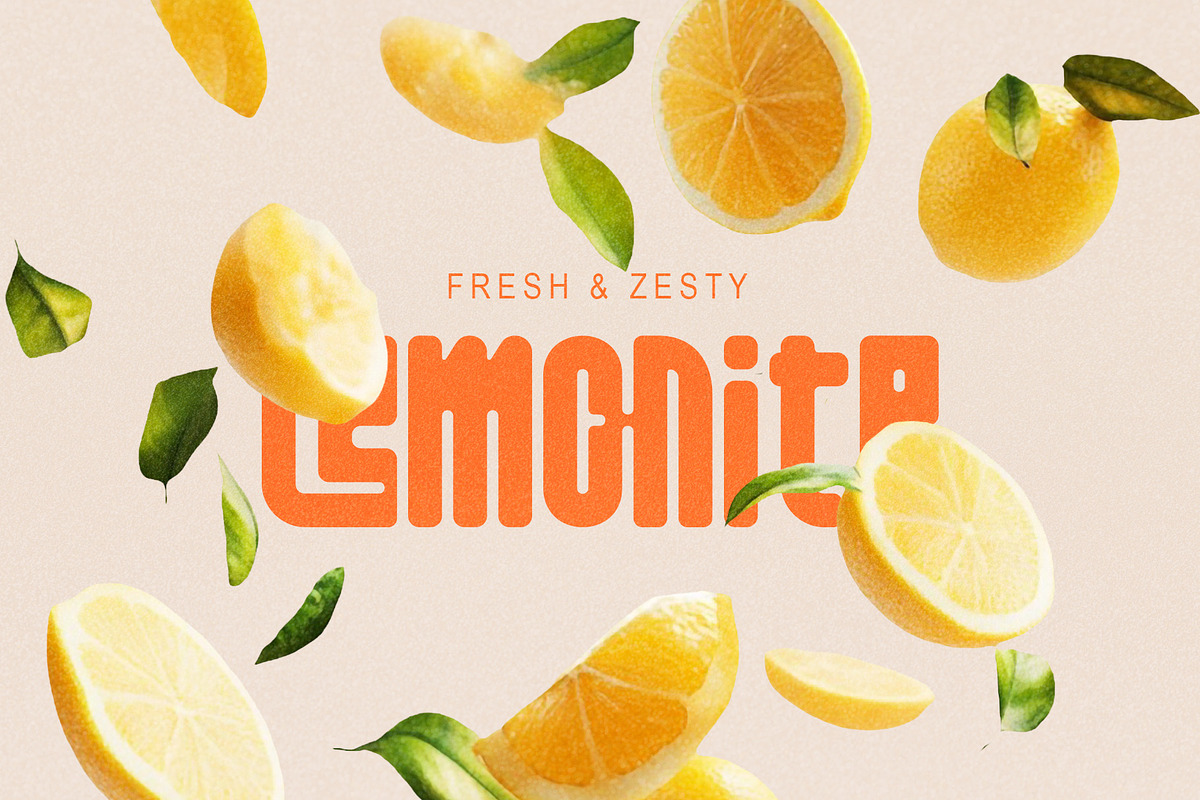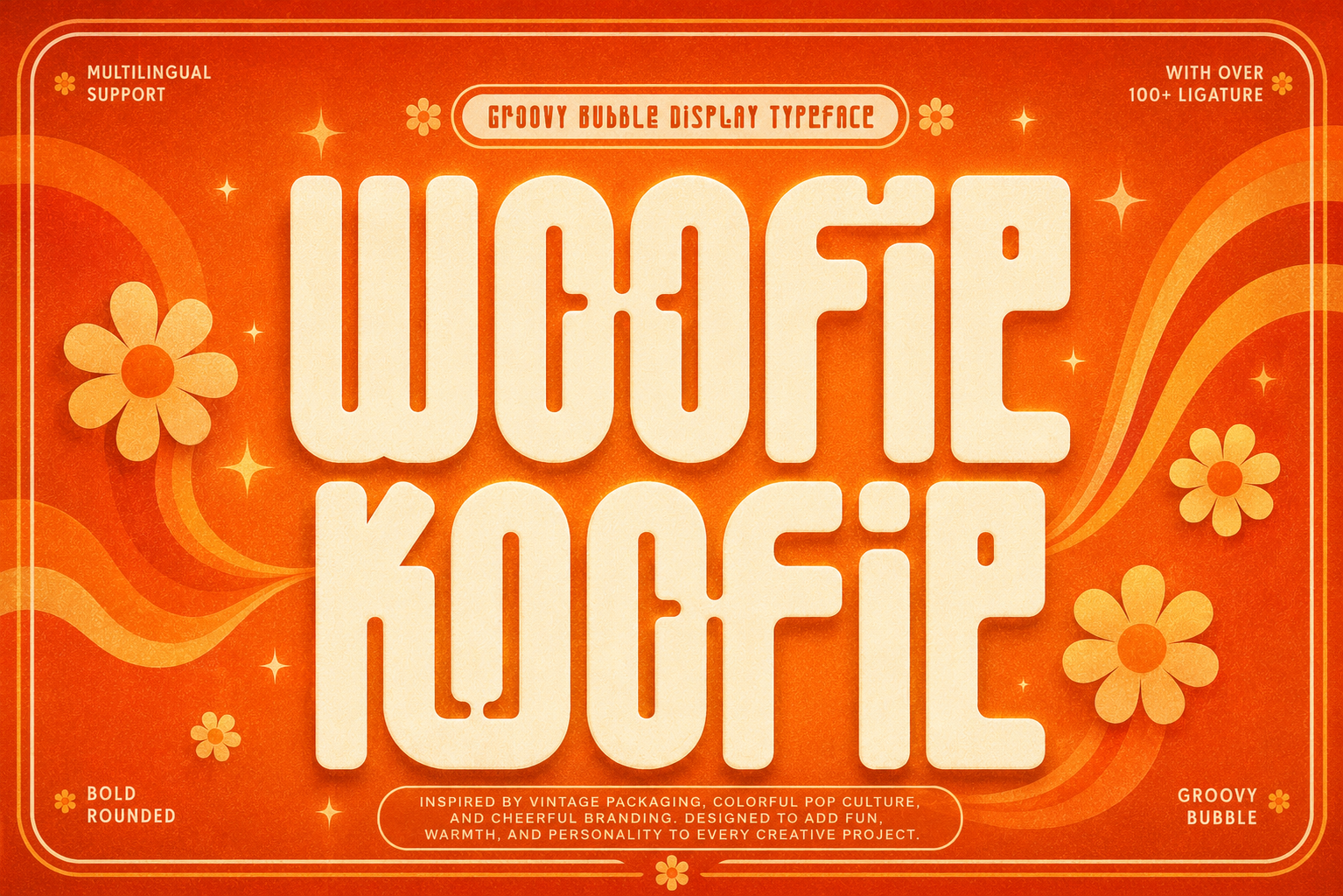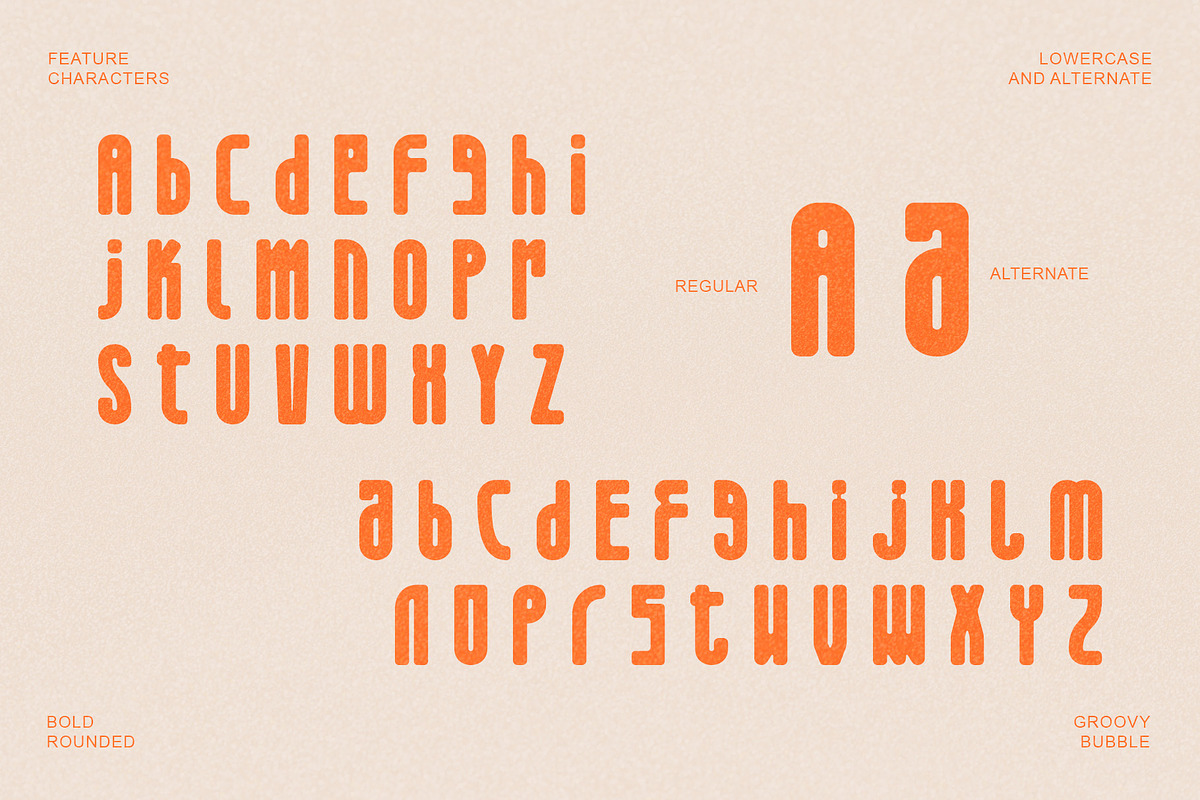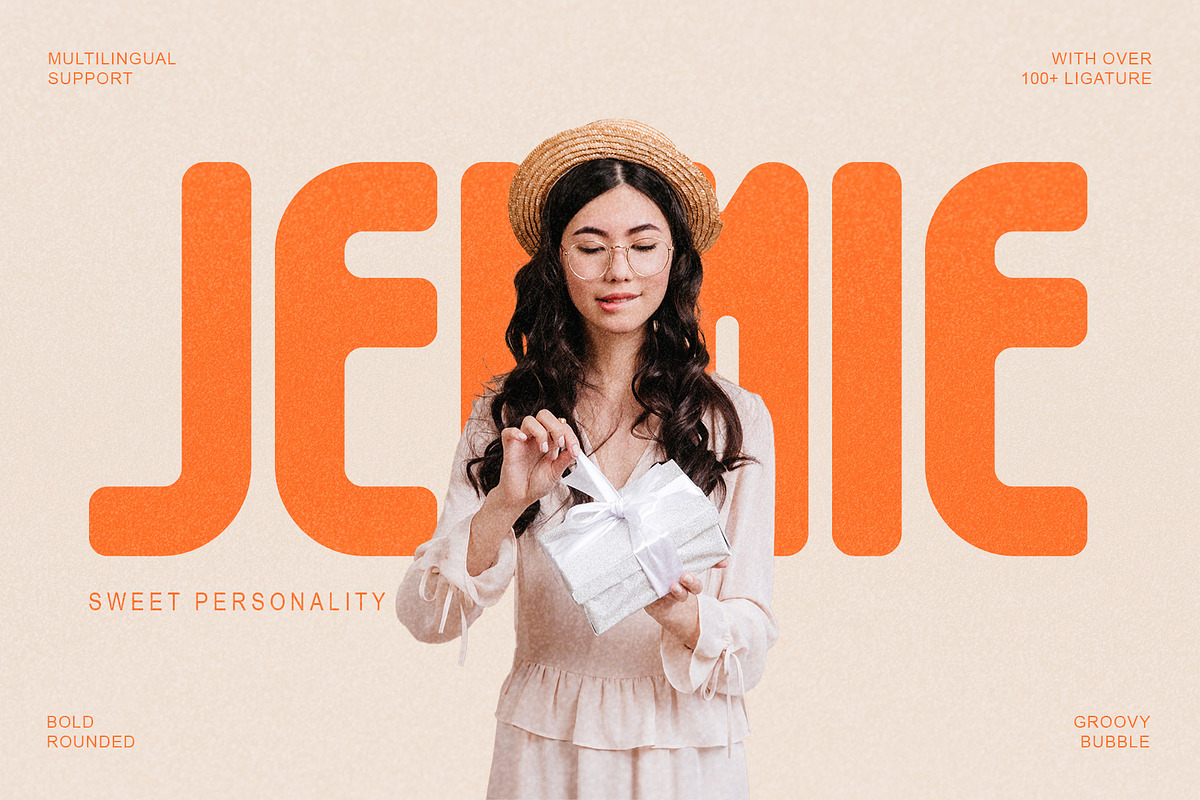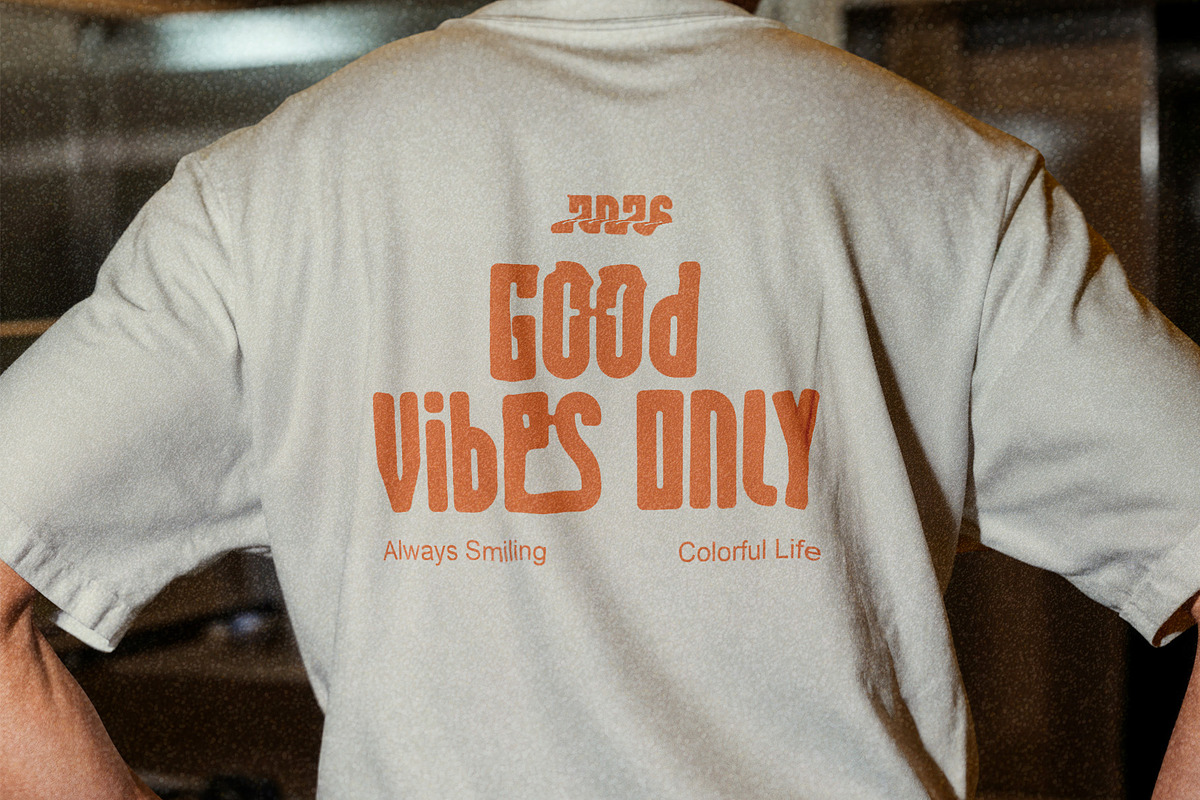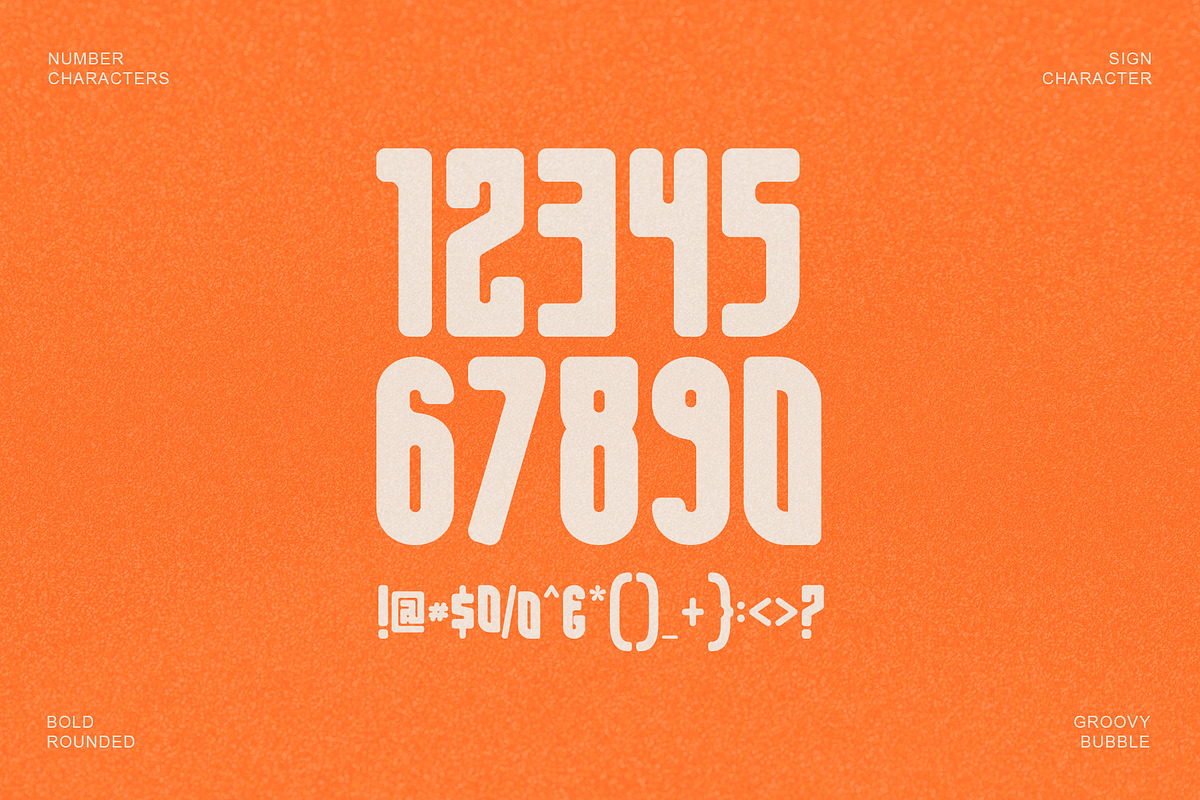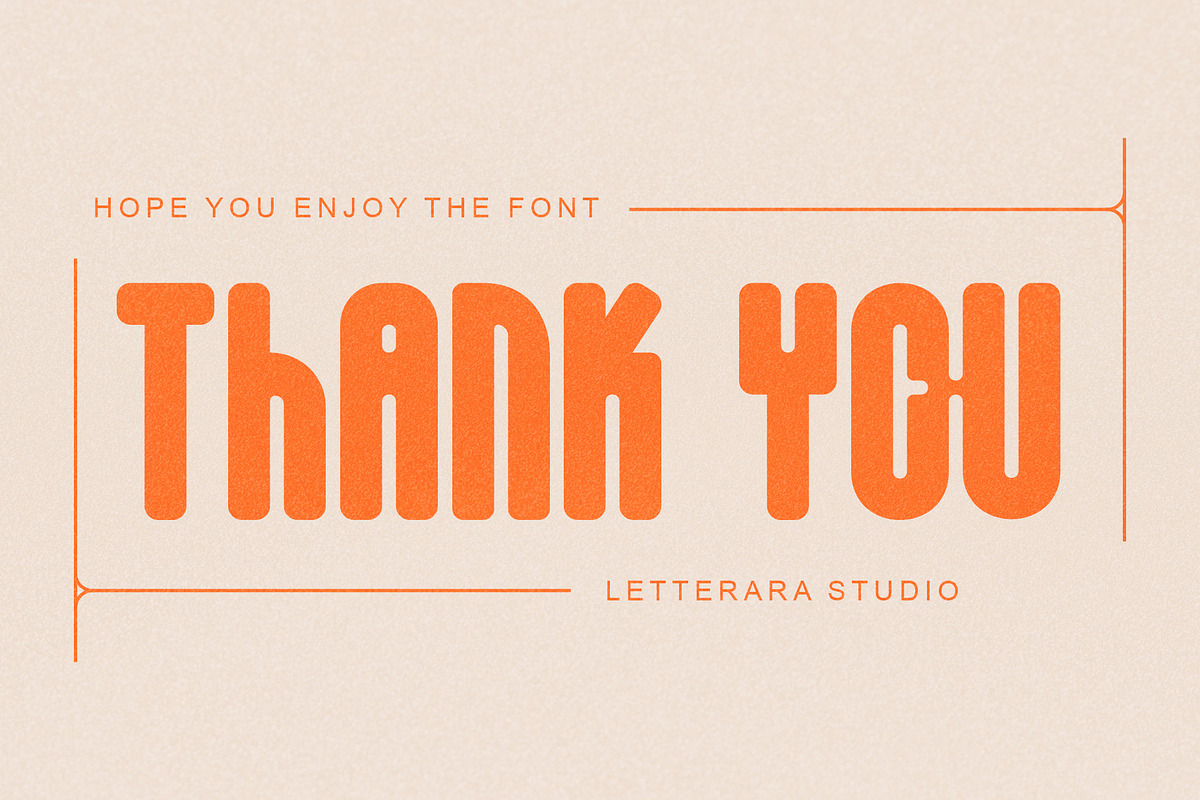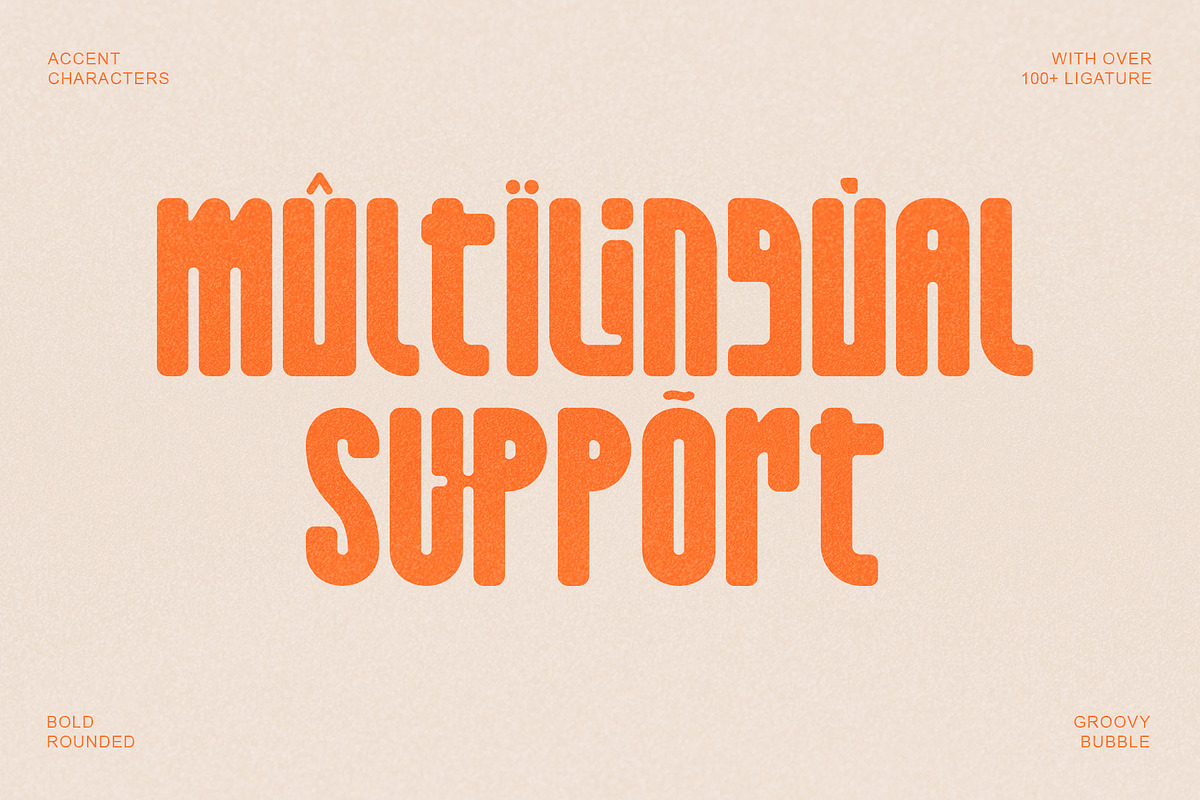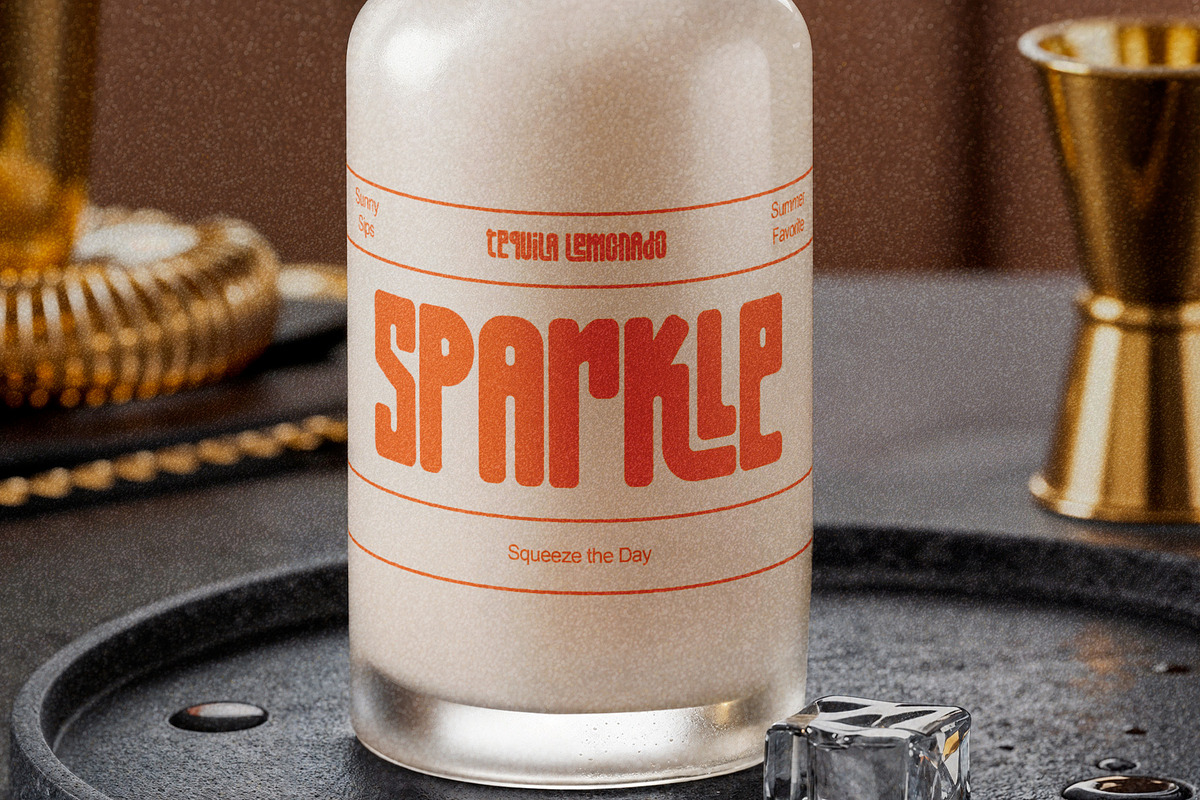
Woofie Koofie - Groovy Font
Woofie Koofie is a bold and playful groovy bubble display font inspired by 1970s typography, vintage packaging, colorful pop culture, and cheerful retro branding. Its rounded letterforms, tall proportions, and distinctive curves bring warmth, personality, and instant visual impact to every creative project.
Designed for attention-grabbing headlines and memorable brand identities, Woofie Koofie combines nostalgic retro character with a clean and modern finish. The font works beautifully across logos, posters, packaging, social media graphics, children’s products, food and beverage branding, music artwork, and other designs that need a fun, friendly, and energetic appearance.
Support multilingual; ä ö ü Ä Ö Ü ß ¿ ¡
uppercase letters
Alternate & Ligature